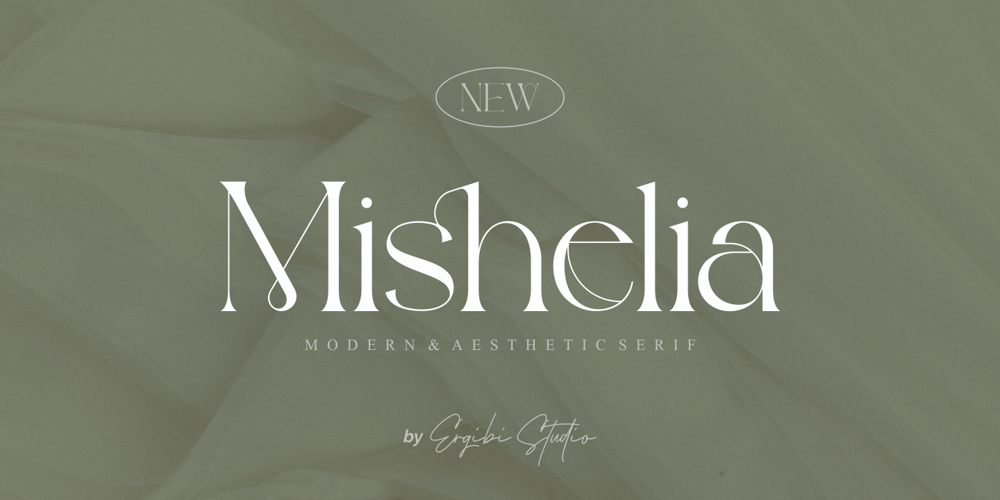
Mishelia Font Family was designed by Riyadh Rahman and published by Ergibi Studio. Mishelia contains 1 styles and family package options. Inspired by today’s modern logo with a unique style but with an elegant shape. So we tried to do and create fonts as per the current market needs. MISHELIA is perfect for BRANDING and LOGO DESIGN. You will get a classy, elegant, and of course aesthetic logo with this font. Besides that, this font has a unique ligature which is very suitable for various types of work such as posters, packaging, T-shirts, coffee shops, restaurants, magazine’s headers, signs or gift/post cards, cafe’s and weddings or any type of advertising purpose.if you have any questions, don’t hesitate to contact usErgibi Studio